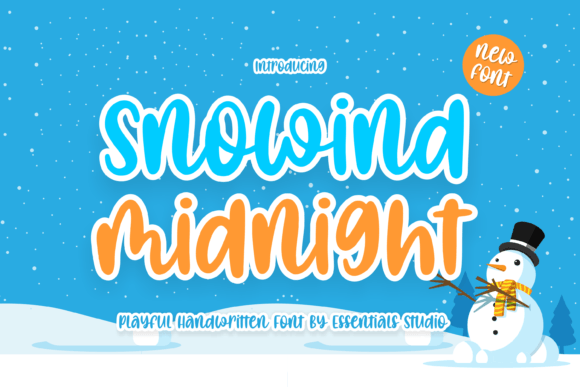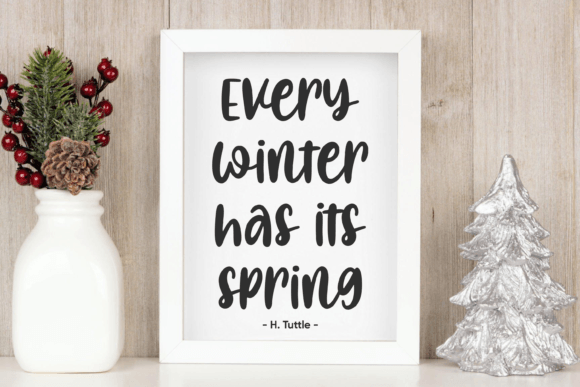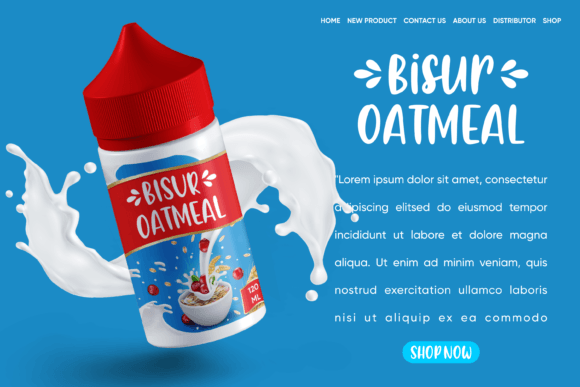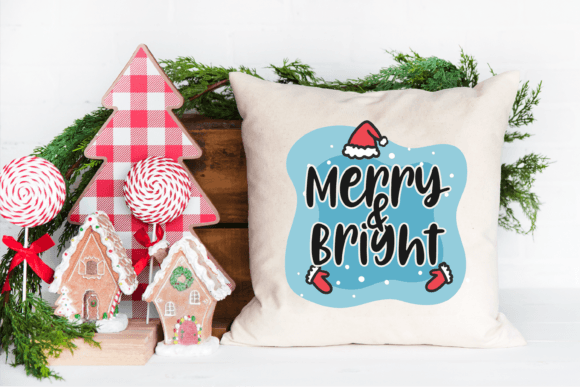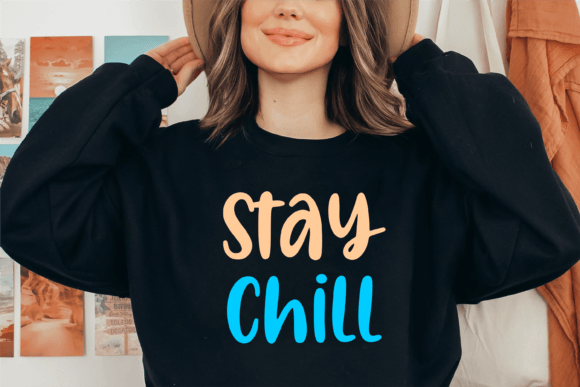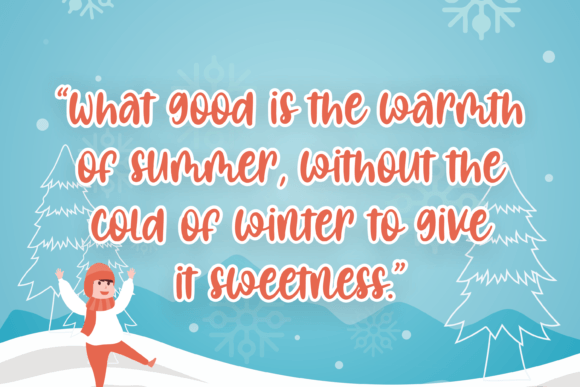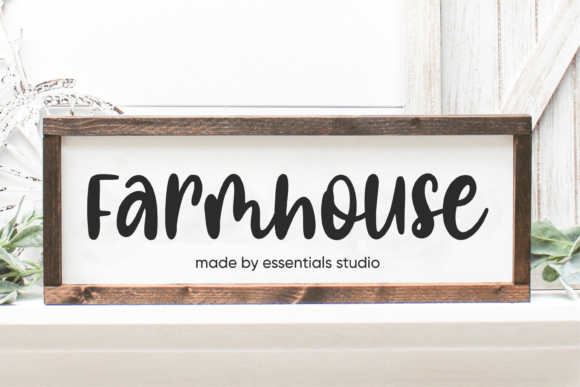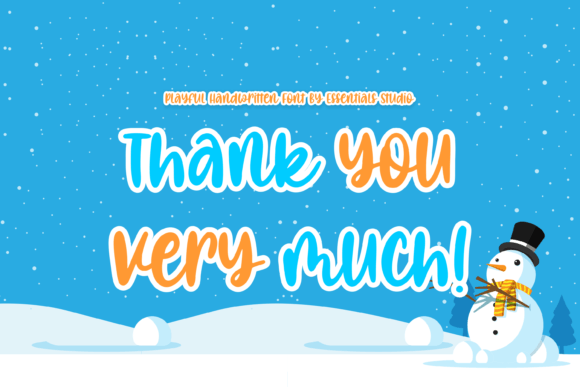
Snowind Midnight Font
About Snowind Midnight Font
Snowind Midnight font is a playful and charming handwritten typeface designed to add a lively touch to your creative projects. Its casual and friendly style makes it suitable for a wide range of uses, from product packaging to branding, magazines, social media, and even wedding designs. This font helps you express words beautifully over any background, creating a unique and engaging visual appeal.
Versatile Use for Packaging and Branding
Snowind Midnight font works perfectly on product packaging, giving your items a personalized and approachable feel. The playful nature of the font makes branding projects stand out by adding character and warmth, attracting customer attention while maintaining professionalism.
Ideal for Magazines and Social Media
With its lively handwritten style, Snowind Midnight is great for magazine headlines, editorial designs, and social media posts. It brings energy and freshness to your content, ensuring that your message grabs viewers’ interest immediately.
Perfect for Weddings and Special Occasions
This font also shines in wedding invitations and related stationery. Snowind Midnight’s friendly and informal look creates a welcoming atmosphere, making your wedding designs feel heartfelt and personal. It adds an intimate touch that resonates well with the spirit of special events.
Easy to Read and Stylish
Despite its playful style, Snowind Midnight font remains easy to read. It balances casual handwriting with elegance, making it adaptable to various design needs. Whether you use it on digital screens or printed material, it maintains clarity and charm.
Why Choose Snowind Midnight Font?
If you want a font that brings playful personality and warmth to your creative work, Snowind Midnight is an excellent choice. It blends friendliness with style, making every project feel more engaging and memorable. Use it to add a distinctive handwritten flair that enhances your brand, packaging, or special occasion designs.